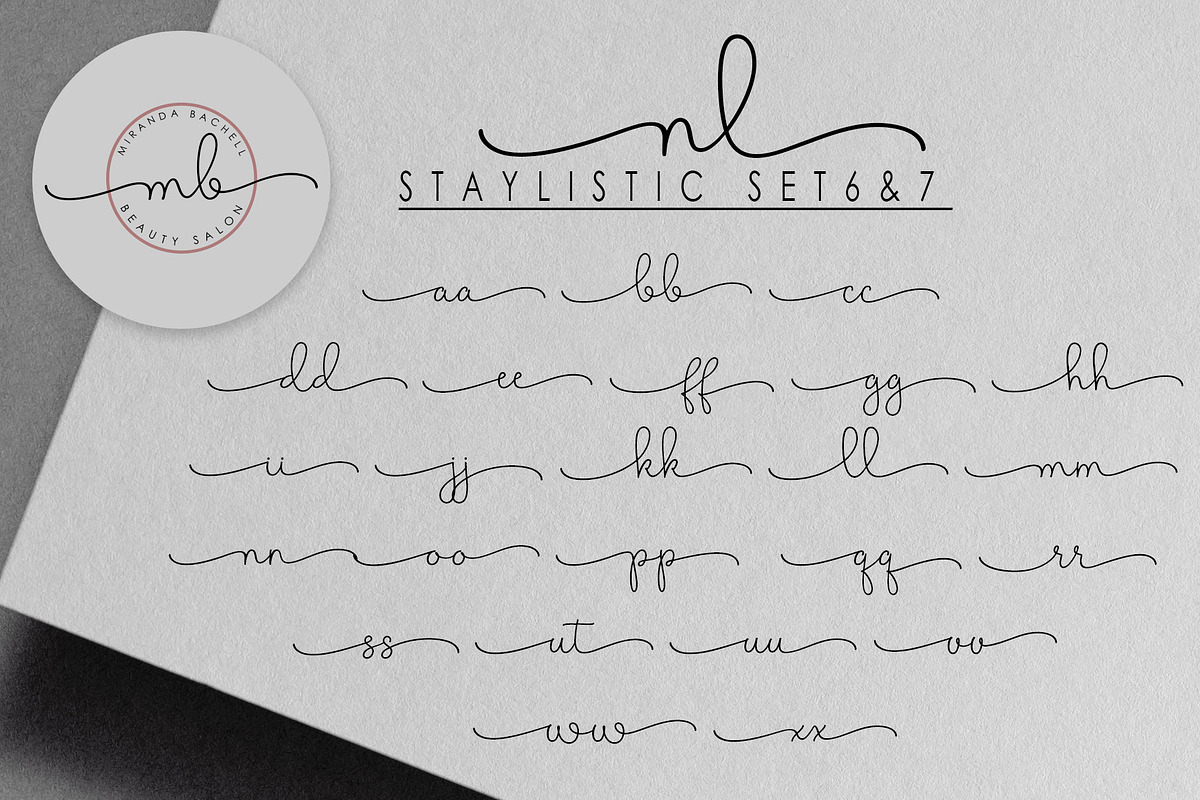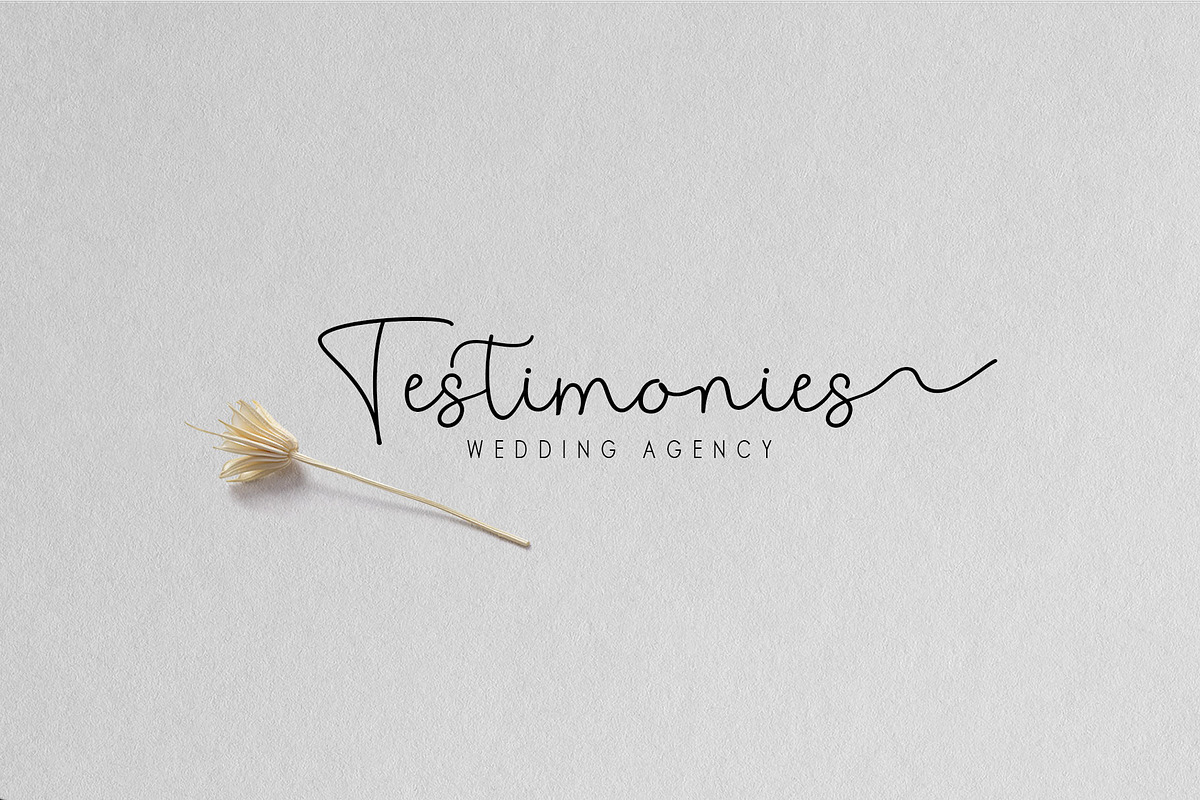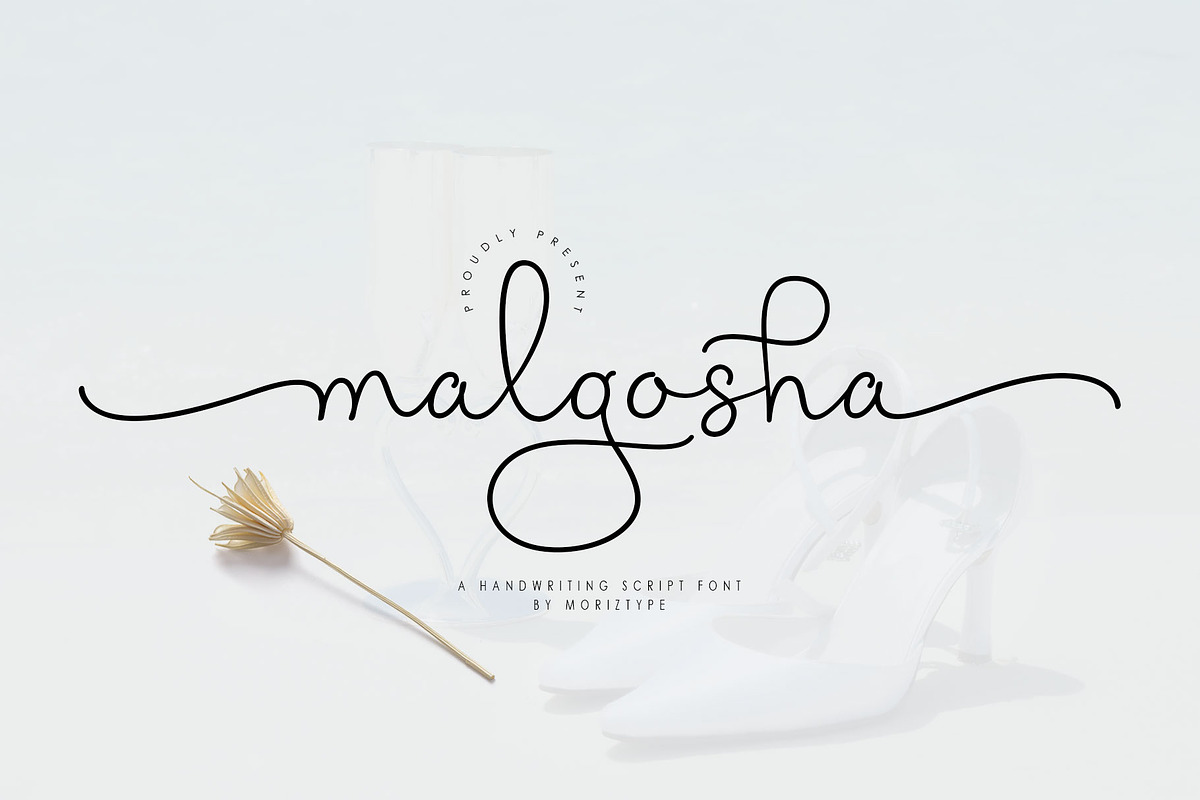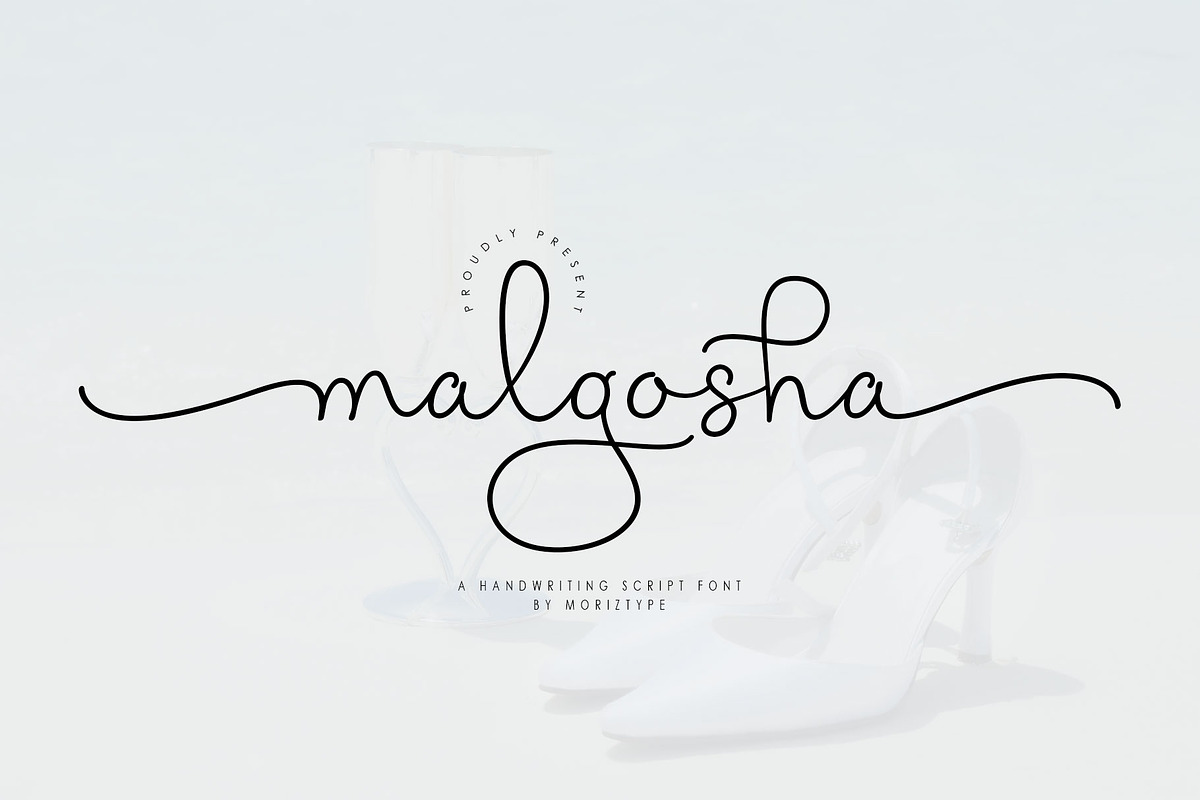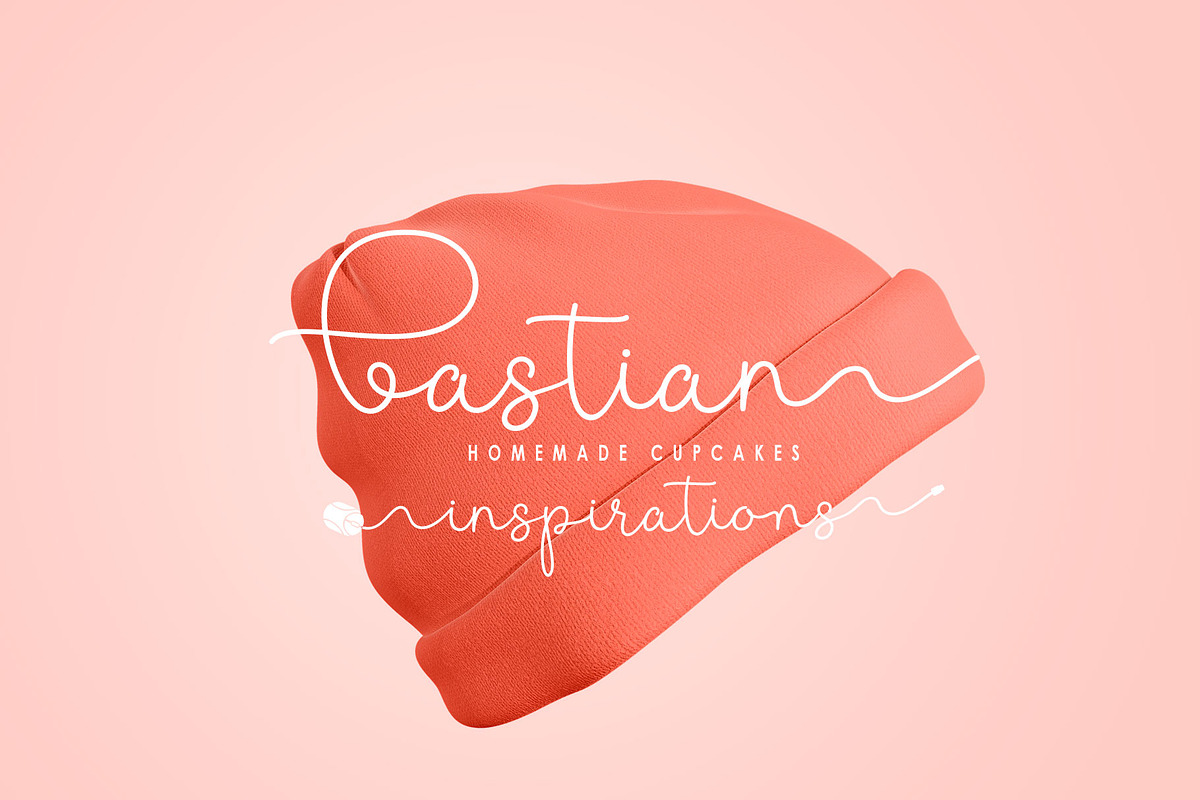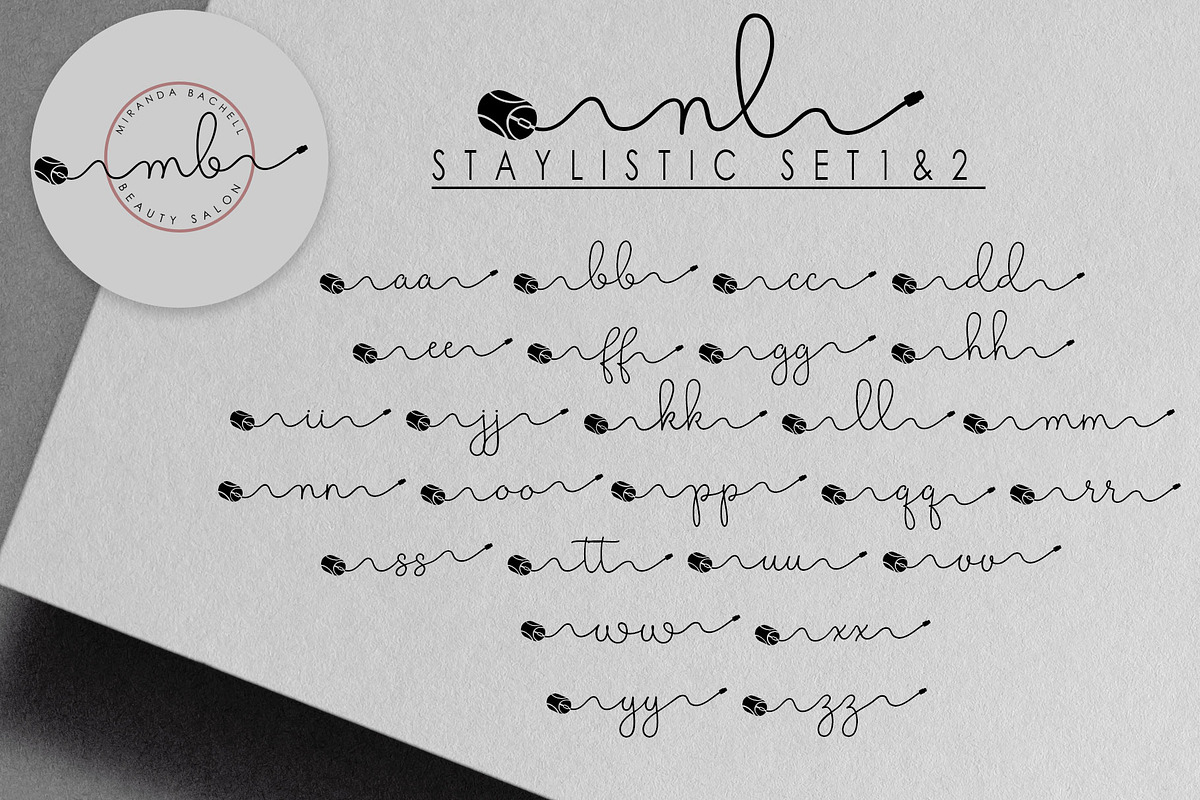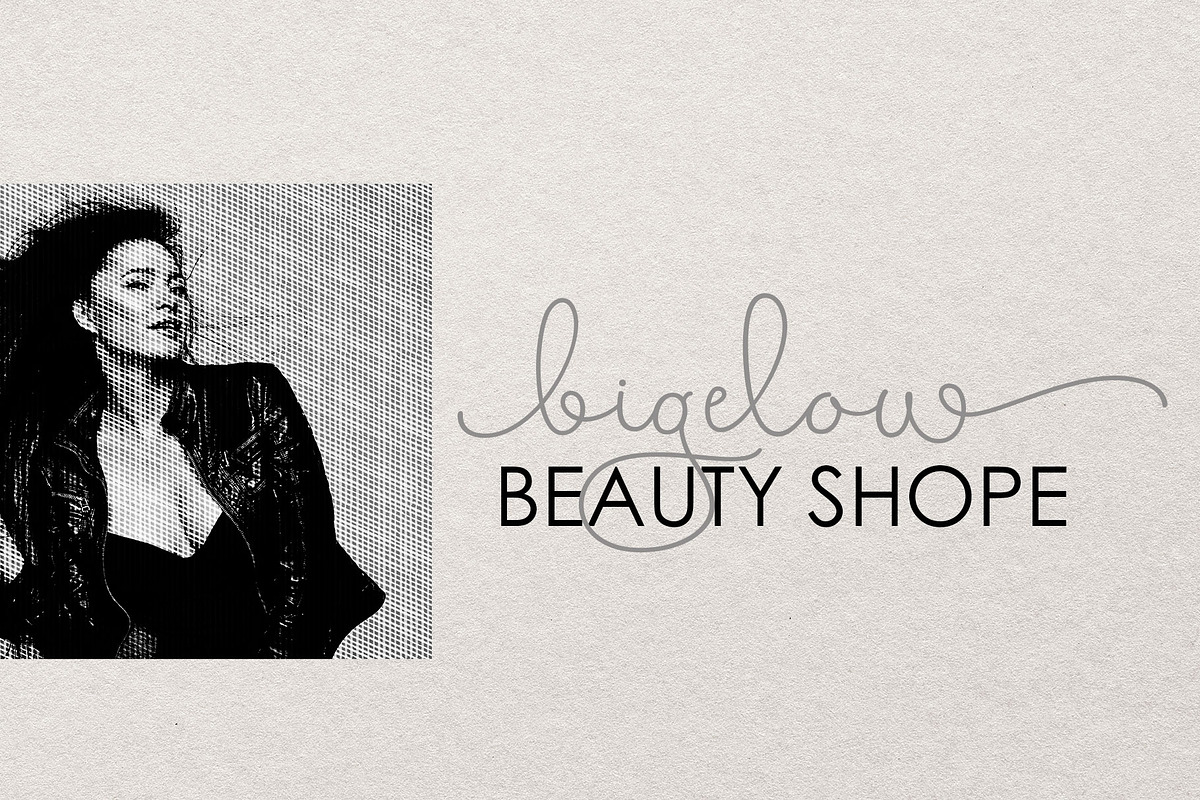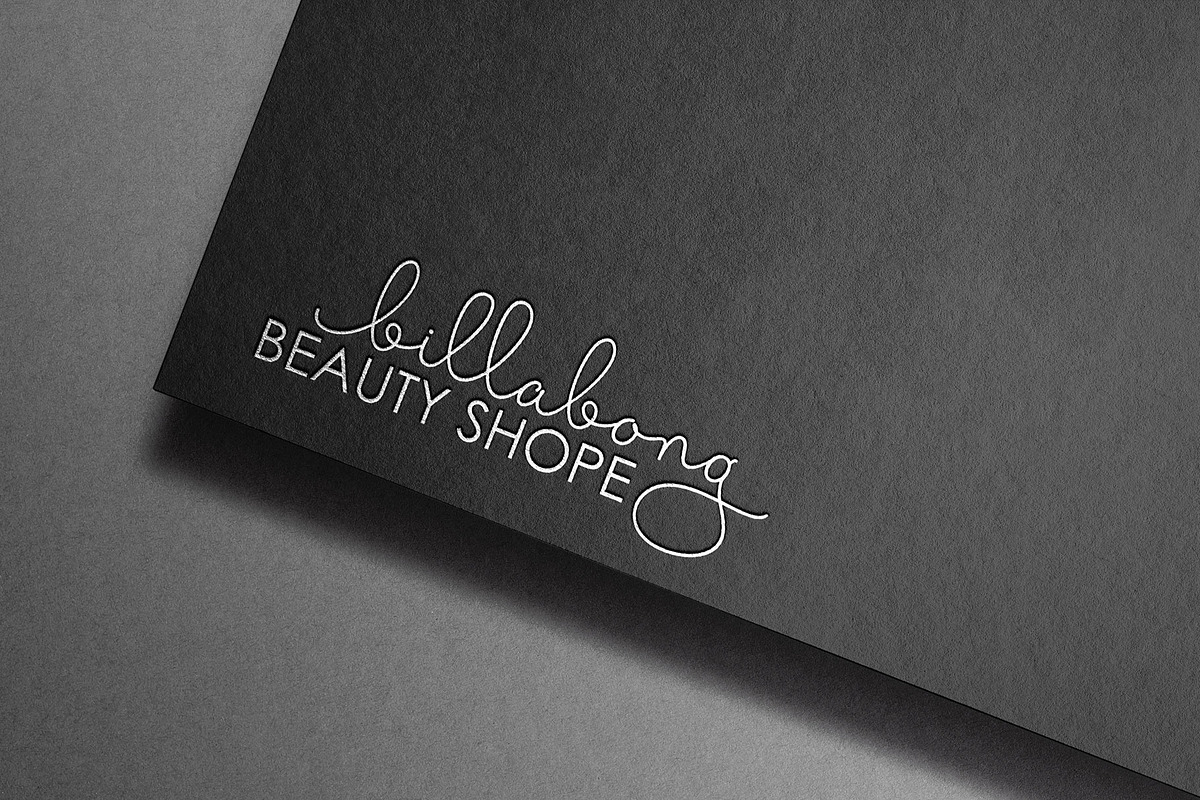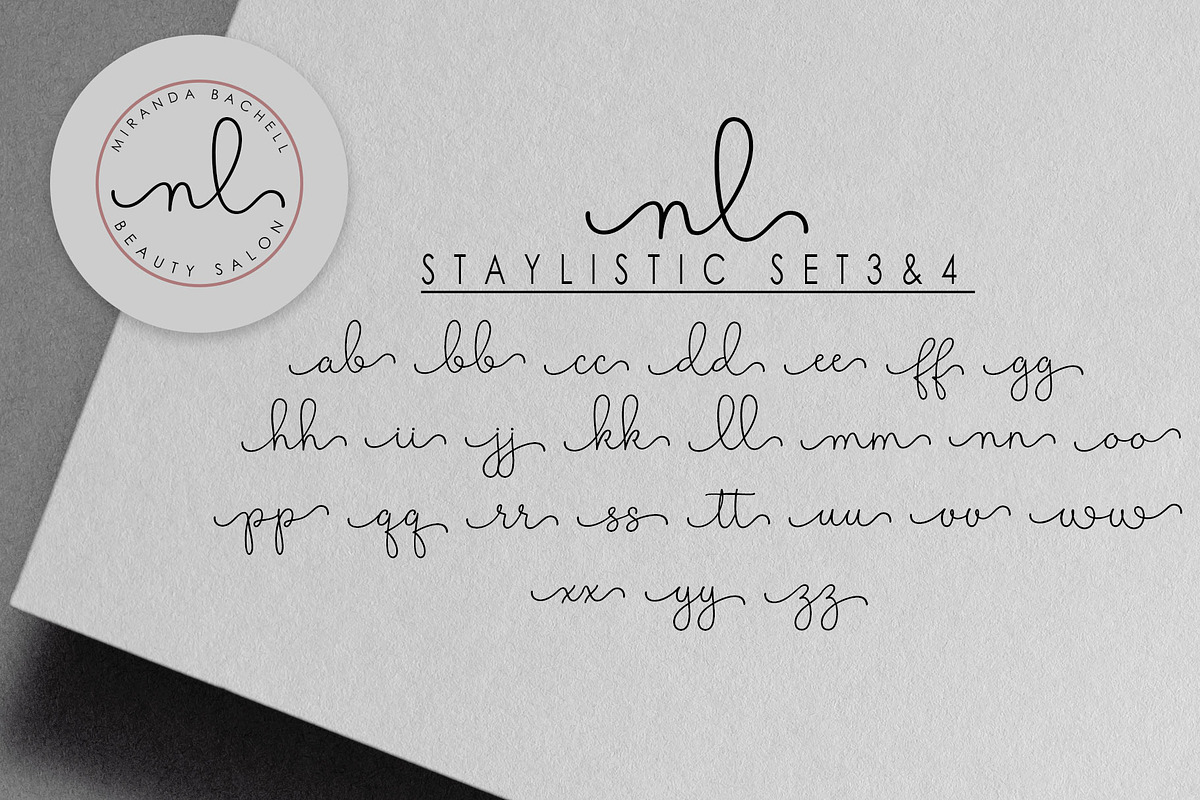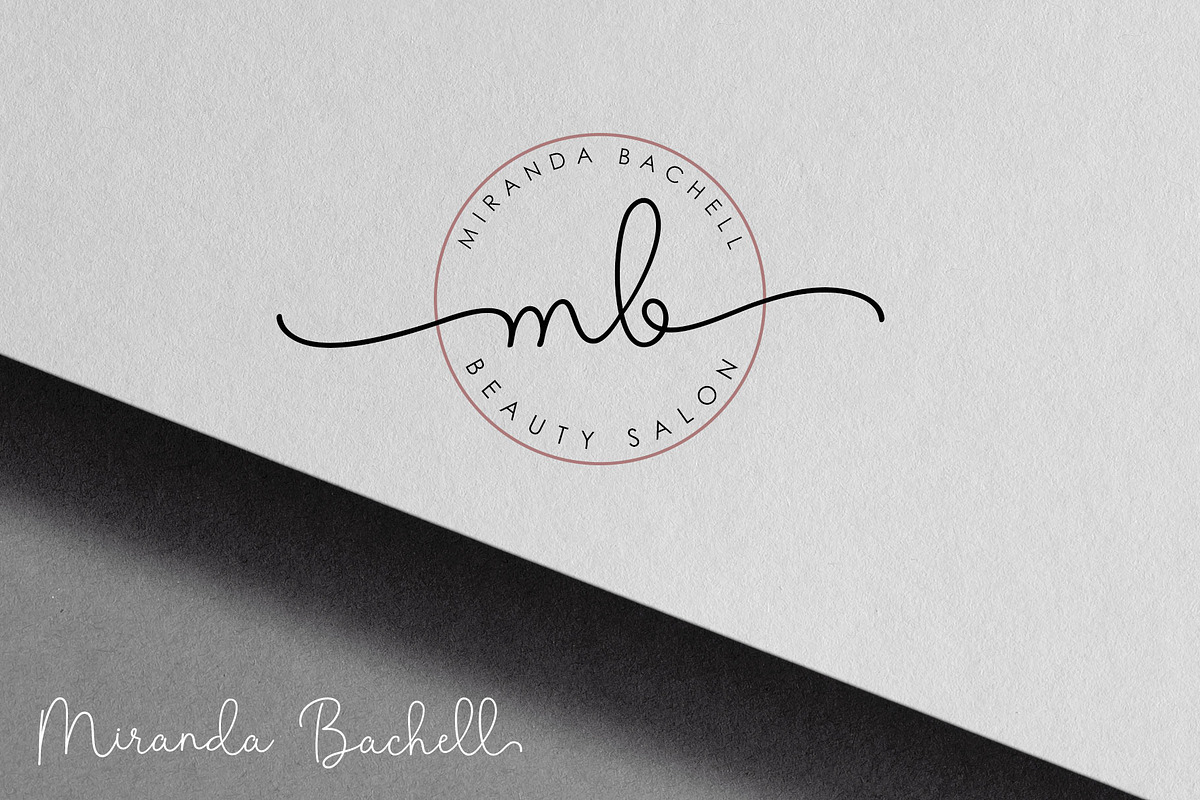
Malgosha Script
Introducing malgosha, handwriting script font perfect for wedding stationery, elegant handwritten logos and branding, websites, social media quotes, and more!
Malgosha Features
- Full Set of standard alphabet and punctuation
- Extra set of beginning swashed lowercase
- Extra set of ending swashed lowercase
- Extra stylistic alternates and ligatures
- Multilingual Characters (ÁÂÄÀÅÃÆÇÐÉÊËÈÍÎÏÌÑÓÔÖÒØÕŒÞÚÛÜÙẂŴẄẀÝŶŸỲ áâäàåãæçðéêëèíîïìñóôöòøõœþßúûüùẃŵẅẁýŷÿỳŠšž€£¥ªº)